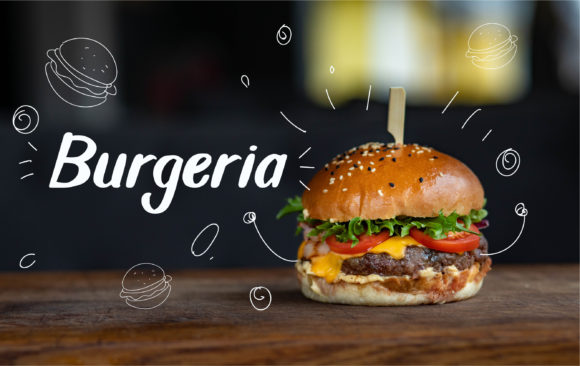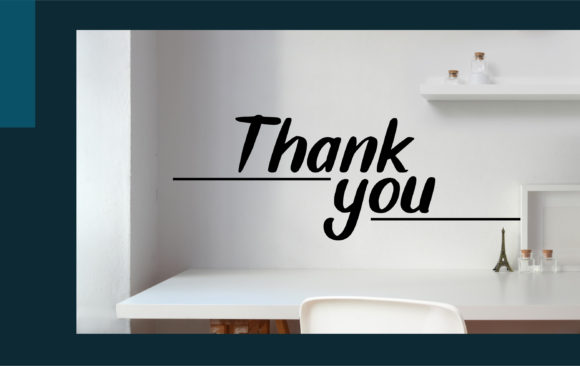
Introduction to Qoimsya Font
Have you ever stumbled upon a hidden treasure that completely transforms your creative process? I still remember the moment I discovered the Qoimsya Font – it was love at first sight. I was working on a DIY project, searching for the perfect handwritten font to give it a personal touch. That’s when I came across Qoimsya Font, and it was like a breath of fresh air. The stunning pairing of a brush pen and pencil created an endearing and authentic look that I couldn’t resist.
As a designer, I can attest to the value of having high-quality design resources like the Qoimsya Font in your toolkit. Not only does it save time, but it also adds a level of sophistication and creativity to any project. Whether you’re working on a free download or a paid design, Qoimsya Font is an excellent choice for anyone looking to add a unique touch to their work.
Key Features of Qoimsya Font
- High-quality design resource perfect for creative projects requiring a unique touch
- Transparent background, ideal for designers who want to add a subtle yet striking effect to their work
- Unique and creative font style, ideal for designers looking to add a touch of sophistication to their work
Honest Review: Qoimsya Font
I recently came across the Qoimsya Font and I must say it’s a great addition to any design resource. This high-quality font is perfect for creative projects where a modern and sleek aesthetic is required.
The font has a transparent background which makes it easy to use in various design applications. One of the things that works well with this font is its versatility – it can be used for both headings and body text, making it a great option for designers who want a consistent look throughout their project.
- ⚠️ The font may not be suitable for all types of designs, particularly those that require a more classic or traditional look.
- ⚠️ Some users may find the font too minimalist, which could be a drawback for those who prefer more ornate or decorative fonts.
Overall, I’m impressed with the Qoimsya Font and I would recommend it to designers who are looking for a high-quality, modern font for their creative projects.
The Qoimsya Font is ideal for use in logos, brochures, business cards, and other creative projects. Its transparent background makes it easy to use in designs with complex backgrounds.